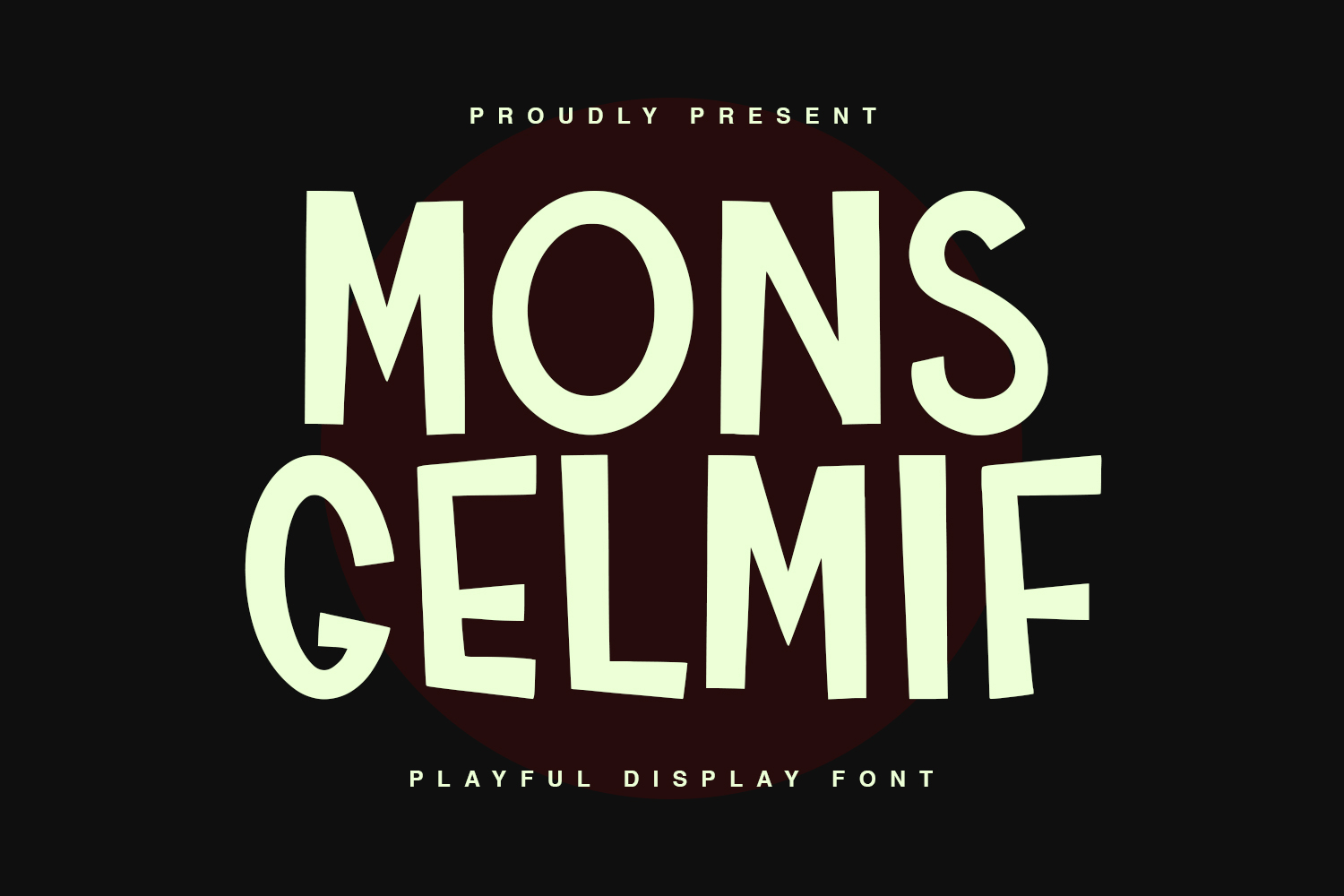
Monsgelmif is a playful style display font. Fun character with a bit of ligatures. To give you an extra creative work. Monsgelmif font support multilingual more than 100+ language. This font is good for logo design, Social media, Movie Titles, Books Titles, a short text even a long text letter and good for your secondary text font with sans or serif. Make a stunning work with Monsgelmif font.